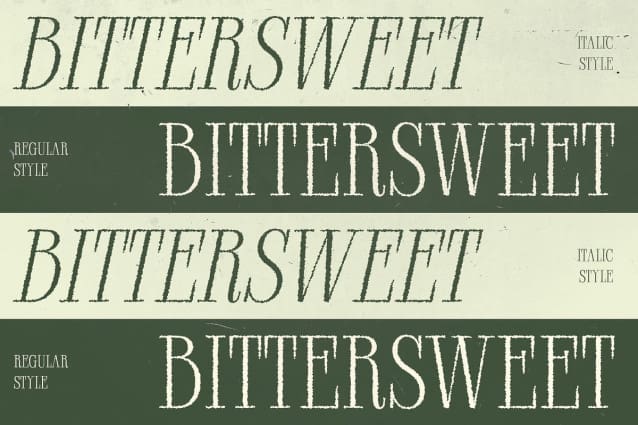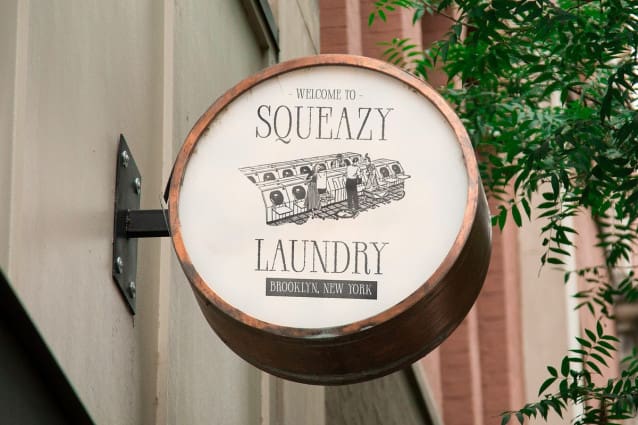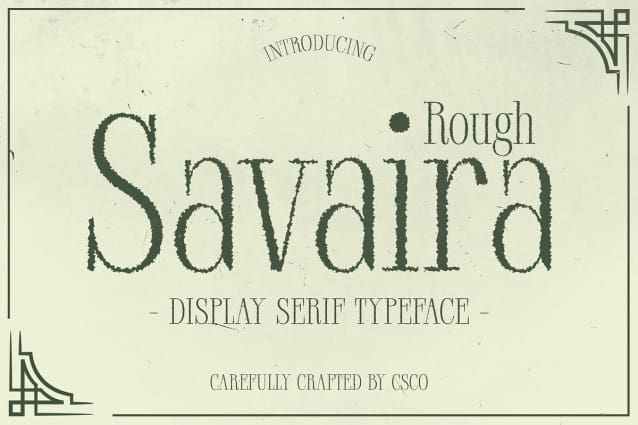
Savaira Rough Font
Savaira Rough Font is a modern serif font that combines a slim, condensed form with an elegant touch. Its space-efficient design maximizes readability and impact, making it perfect for applications where space is at a premium. The condensed structure ensures a compact and professional appearance, ideal for clean, high-impact text.
Refined Sophistication with a Textured Edge While maintaining its sleek and professional look, Savaira Rough introduces a unique rough texture that adds a layer of character and visual interest. This coarse, textured effect contrasts with the font’s refined elegance, blending sophistication with a creative edge. The result is a font that stands out with both modern style and artistic flair.
Versatile for Branding, Posters, and Promotional Materials Savaira Rough is versatile enough to enhance a range of design projects. Its balance of sleek modernity and distinctive texture makes it an excellent choice for branding, posters, and promotional materials. Whether used in corporate settings or creative campaigns, this font delivers a professional yet visually engaging appearance.